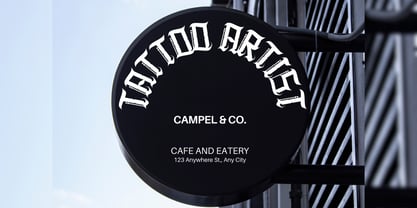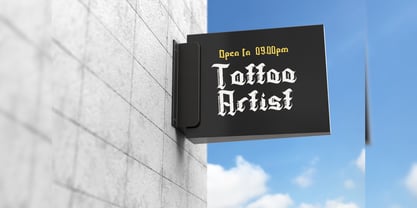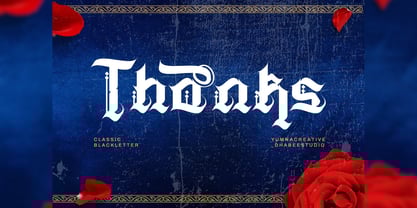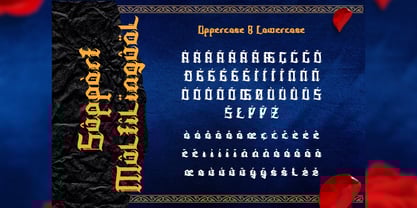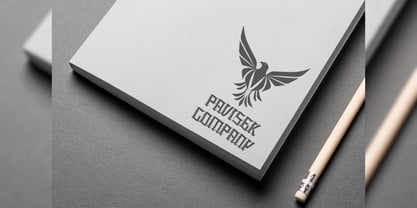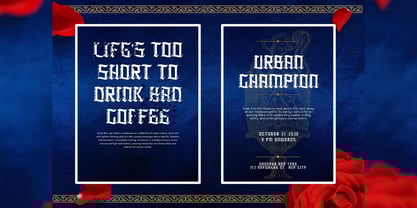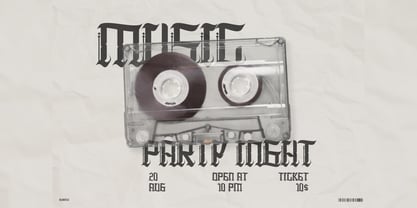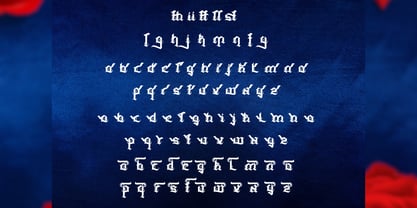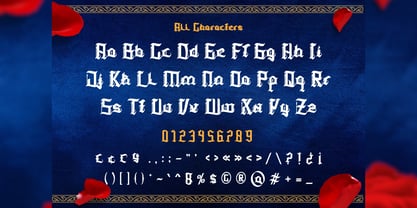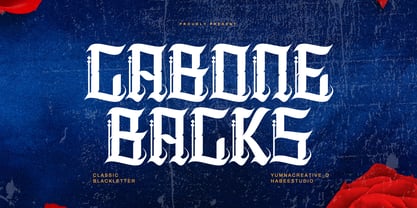
Cabone Backs
Introducing Cabone Backs – Gothic Blackletter Font
Cabone Backs – Gothic Blackletter Font is a bold blackletter fraktur display font that merges traditional Gothic aesthetics with modern impact. Its intricate letterforms feature sharp angles, dramatic strokes, and striking contrasts, embodying strength, authority, and historical charm. The bold weight enhances its commanding presence, making it ideal for designs that demand attention and sophistication
FEATURES
– Uppercase and Lowercase letters
– ALternate and Ligature
– Numbering and Punctuations
– Multilingual Supports